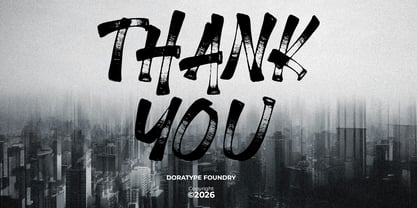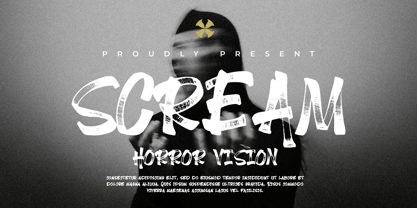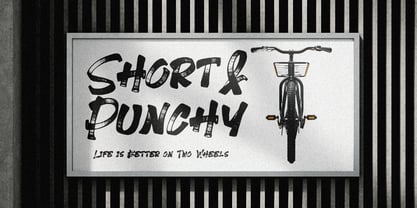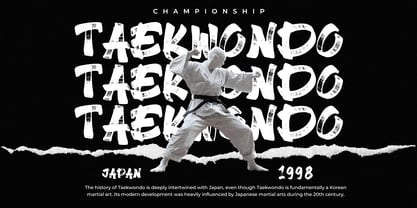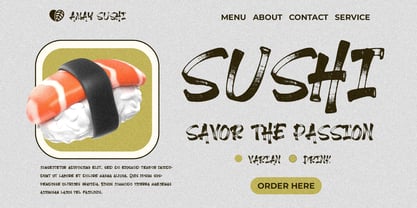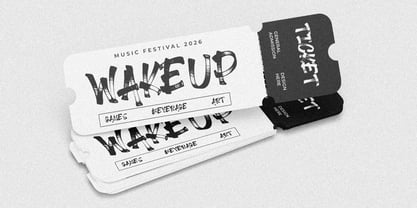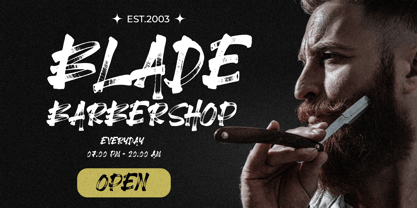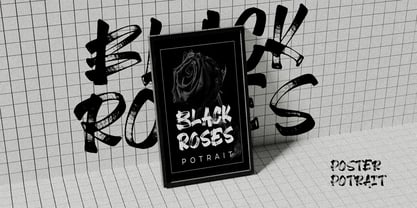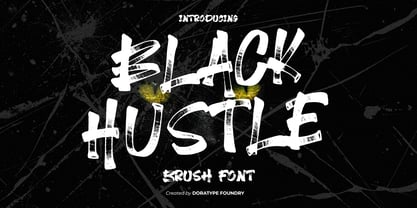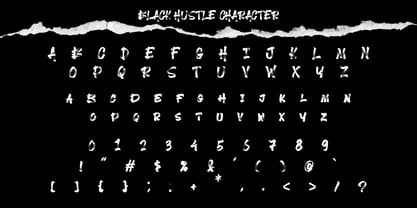
Black Hustle
The Black Hustle Font Family was designed by Zahratul Laila and published by Dora Typefoundry. Black Hustle contains 2 styles and family package options. More about this family
Black Hustle is a brush-style display font that exudes a strong, expressive, and energetic character. Each stroke is designed to mimic natural brushwork with an authentic, rough texture, creating a bold, wild, and artistic impression. The intentionally asymmetrical letterforms lend a dynamic, handmade feel, allowing the font to command attention across a wide range of design compositions.